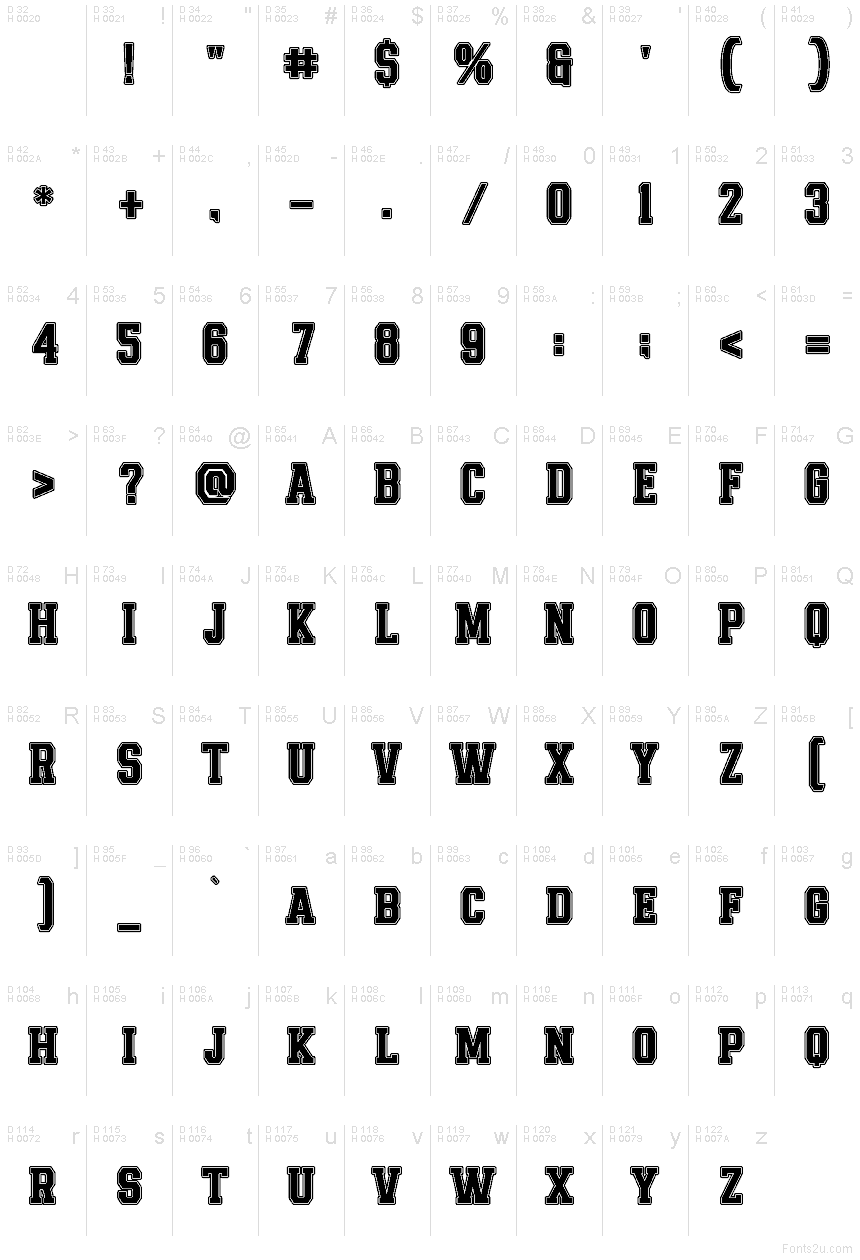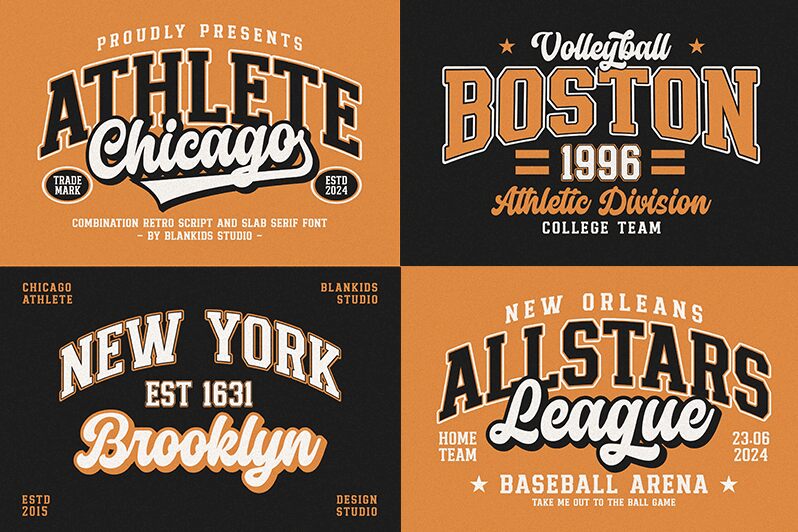
Chicago Athletic Slab Serif 2
Chicago Athletic Slab Serif 2 font by Blankids is a free bold old-school slab serif display font. Part of the Chicago Athletic family, it wears its varsity heritage proudly: blocky slabs, tight vertical rhythm, and a crisp inner inline framed by a thick outline that reads like stitched chenille patches. The forms are sturdy and upright, giving headlines a confident, grandstand-ready presence without slipping into clunkiness.
Using Chicago Athletic Slab Serif 2, your sports branding, team logos, event posters, stadium signage, school spirit merch, and ticket or badge designs will land with punch and polish. This free font shines on banners and social graphics where scale amplifies its chunky outlines. Pair it with a clean grotesk for supporting text, and add a touch of tracking at larger sizes to let the inline detail breathe.